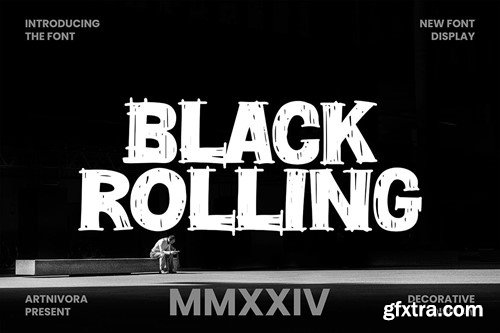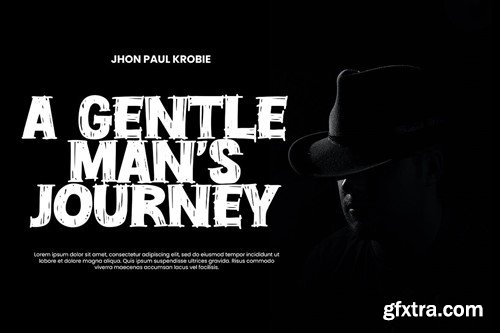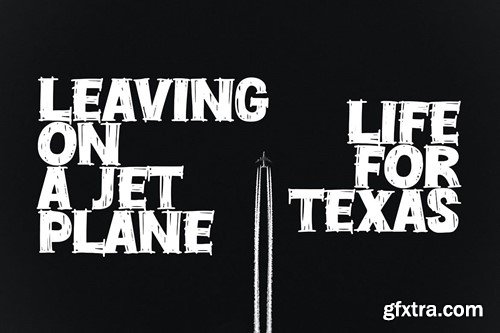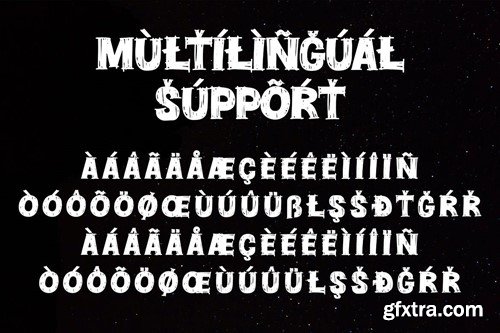
Black Rolling - Decorative Display Font SEL5XZM
Black Rolling - Decorative Display Font
Introducing Black Rolling, a simple and decorative display font. So perfect for you who needs a typeface for logo designs, magazine, social media, brochure, and many more.